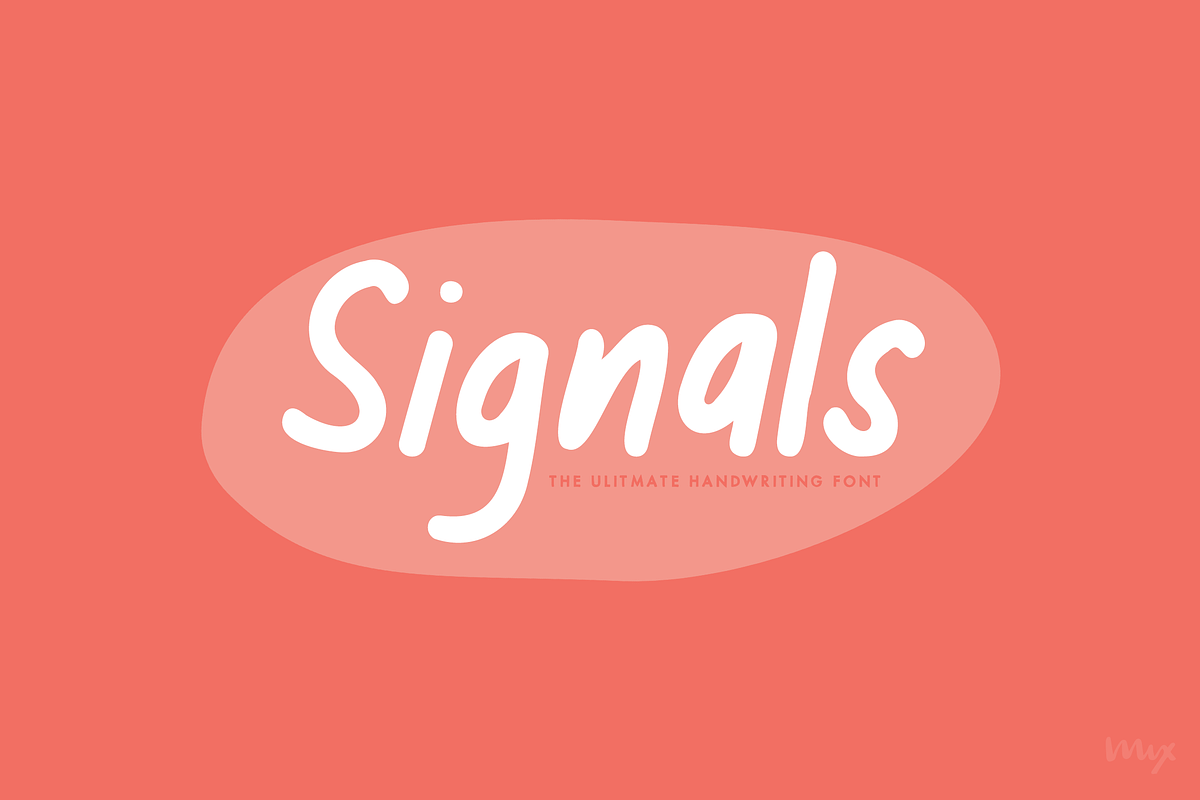
Signals - The Best Handwriting Font Free Download is a charming hand-written, twirly sans-serif typeface that brings a homemade, DIY feel to your design projects. Ideal for creating a personal touch in your work, Signals is perfect for projects that require a handcrafted aesthetic.
Designed by Mix Fonts, Signals - The Best Handwriting Font Free Download offers a unique blend of casual elegance and readability, making it suitable for various design applications.